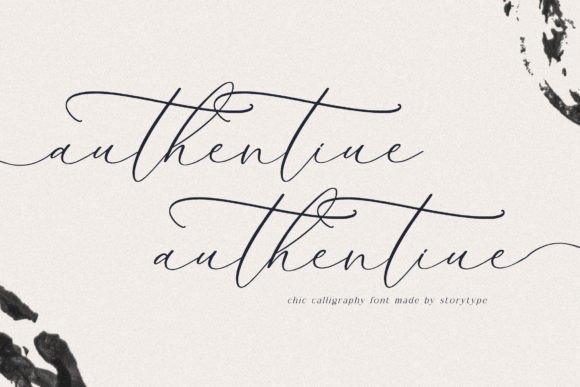
The Perfect Touch of Elegance with Authentiue Font
You’ve spent hours perfecting the layout, carefully selecting the colors, and pouring your heart into the content. But something is still missing – that special something that sets your design apart from the rest. For designers, finding the right font can be a game-changer, and Authentiue Font is here to elevate your creations to the next level.
Authentiue Font is a stunning calligraphy script font that exudes style and sophistication. Whether you’re working on a wedding invitation, a logo, or a marketing campaign, this font has the potential to add a touch of elegance and refinement to your design. With its unique and versatile style, Authentiue Font is an invaluable asset to any designer’s library, and its impact will be felt in every project you undertake.
- Unique Characteristics: The font features a distinctive, hand-drawn aesthetic with intricate details and subtle texture, giving it a unique and authentic feel.
Authentiue Font Review
As a designer, I’m always on the lookout for unique and creative fonts to elevate my designs. Authentiue Font is one of the latest additions to my font library, and I must say, it’s been a mixed bag.
- Authentiue Font offers a wide range of styles and weights, making it perfect for various design projects.
- The font’s authentic, vintage vibe is perfect for creating a nostalgic or retro feel in my designs.
- The font is highly customizable, allowing me to fine-tune the settings to achieve the desired look and feel.
- The font can be a bit too bold at times, overpowering the rest of the design.
- The vintage aesthetic may not be suitable for all design projects, particularly those requiring a modern or minimalist look.
While Authentiue Font has its limitations, I appreciate its unique character and versatility. It’s a solid addition to my font library, and I’m excited to experiment with it in future design projects.
Getting the Most Out of Authentiue Font
For optimal results, use the Authentiue Font in conjunction with a clean and minimalist design aesthetic. Avoid combining it with too many other fonts or styles, as this can create visual clutter.
The Authentiue Font is particularly well-suited for:
- Editorial and publishing content
Remember to use the Authentiue Font consistently throughout your design to create a cohesive and professional look.
Alternatives to Authentiue Font
Playfair Display is an elegant and luxurious font, perfect for creating a sense of sophistication and refinement. It’s ideal for use in titles, headings, and other prominent text elements.
Comparison to Authentiue Font: While Authentiue Font is also a luxurious font, Playfair Display has a more ornate and intricate feel, making it a better choice for high-end designs.
Great Vibes is a modern and stylish font, great for creating a sense of energy and excitement. It’s perfect for use in headings, titles, and other text elements where a sense of dynamism is desired.
Comparison to Authentiue Font: While Authentiue Font is more elegant, Great Vibes is more energetic and playful, making it a better choice for designs that need a bold and attention-grabbing feel.